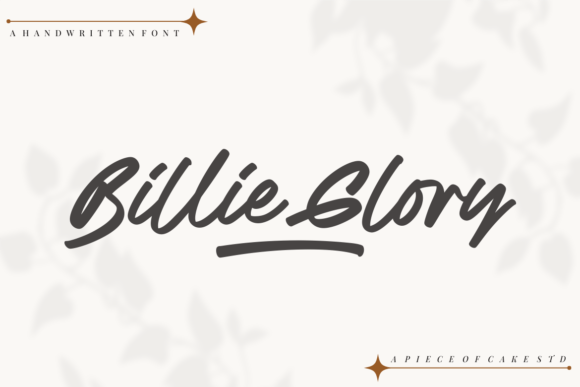
Unleash the allure of your designs with Billie Glory, the captivating script font that exudes elegance and charm. Step into a world of creativity where your imagination takes center stage, and let Billie Glory transform your visions into stunning realities. This meticulously crafted font, born from the passion of piece of cake, is an artistic masterpiece that adds a touch of sophistication to your creations.
Billie Glory's enchanting strokes dance gracefully across your designs, captivating the eyes of all who behold them. Its versatility knows no bounds, lending itself effortlessly to a myriad of projects, from eye-catching T-shirt designs to heartfelt calligraphy scripts. Whether you're an aspiring designer seeking to make a statement or a seasoned professional yearning for a touch of uniqueness, Billie Glory is your perfect companion.
Don't settle for ordinary fonts that blend into the background. Embrace the brilliance of Billie Glory and let your designs shine brighter than ever before. Its elegant curves and captivating charm will leave a lasting impression on your audience, setting your creations apart from the mundane.
Take the first step towards design excellence and make Billie Glory your font of choice. Experience the joy of creating with a font that understands the language of beauty and elegance. Let Billie Glory be your muse, inspiring you to create designs that resonate with your audience and leave an indelible mark on their hearts.